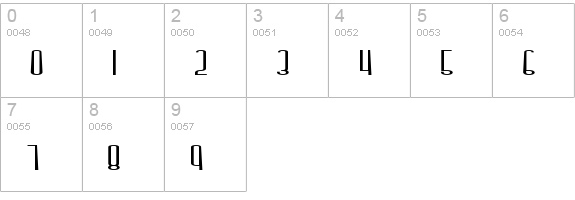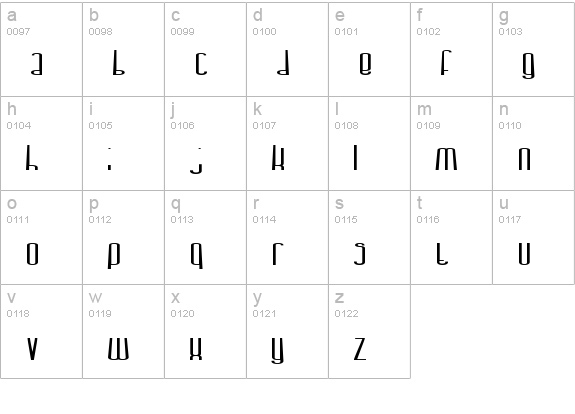
Dystorque BRK font is a bold and futuristic typeface that exudes a sense of strength and power. With its sharp angles and geometric design, this font is perfect for creating impactful headlines, logos, and posters. The unique style of Dystorque BRK font sets it apart from other fonts, making it a standout choice for any design project. The best part is that Dystorque BRK font is available for free! You can easily download this striking font at FontsMarket.com and start using it in your projects right away. Whether you're looking to add a modern edge to your designs or make a bold statement, Dystorque BRK font is the perfect choice. Get your hands on this dynamic typeface today and take your designs to the next level.